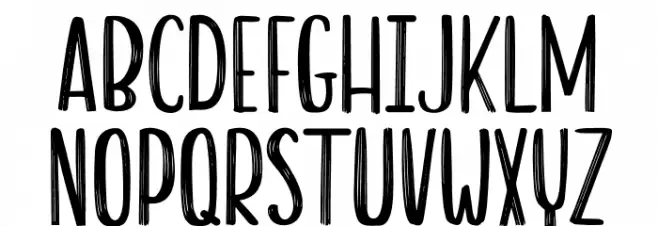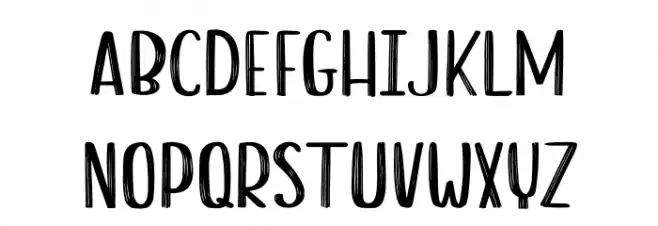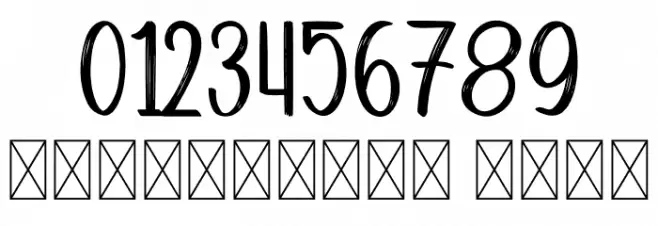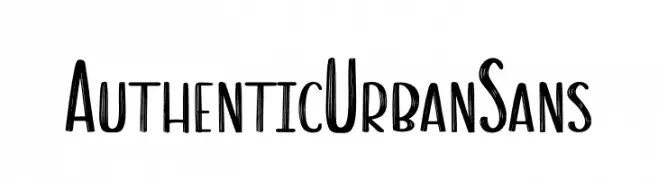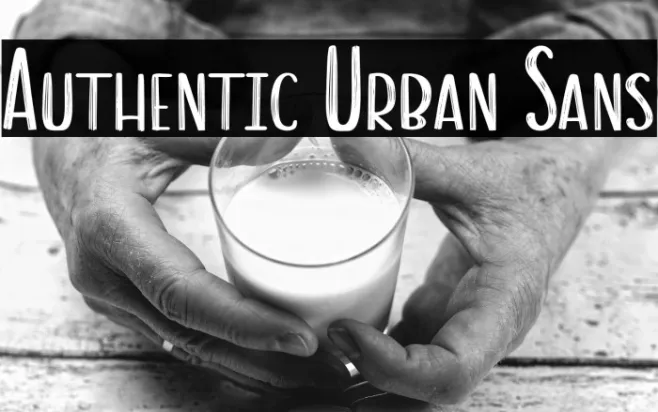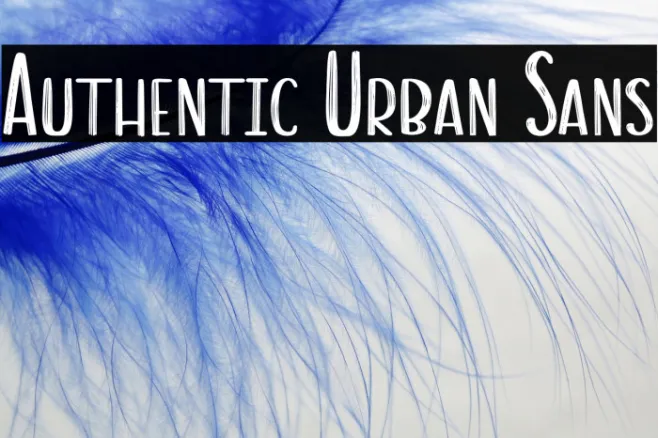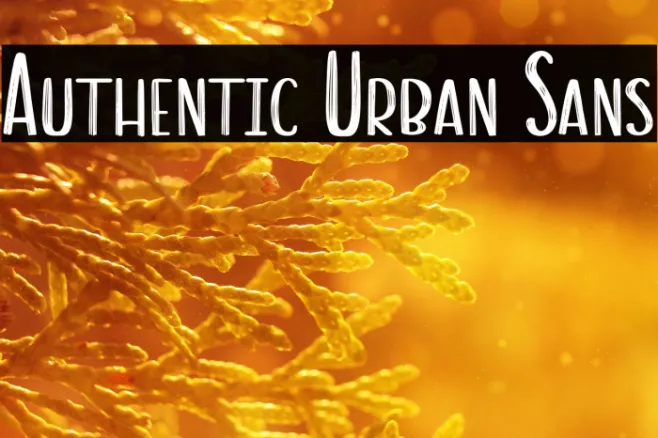
Authentic Urban Sans
A bold, handwritten sans-serif font with a textured, brush-like appearance, giving it an urban and artistic feel.
Bold, textured, handwritten sans-serif font.
- Proposed Projects: Street art designs, urban-themed posters, creative branding.
- Contrast: High
- Overall Style: Urban, Artistic, Modern
- Use Case: Headlines, Posters, Artistic Branding